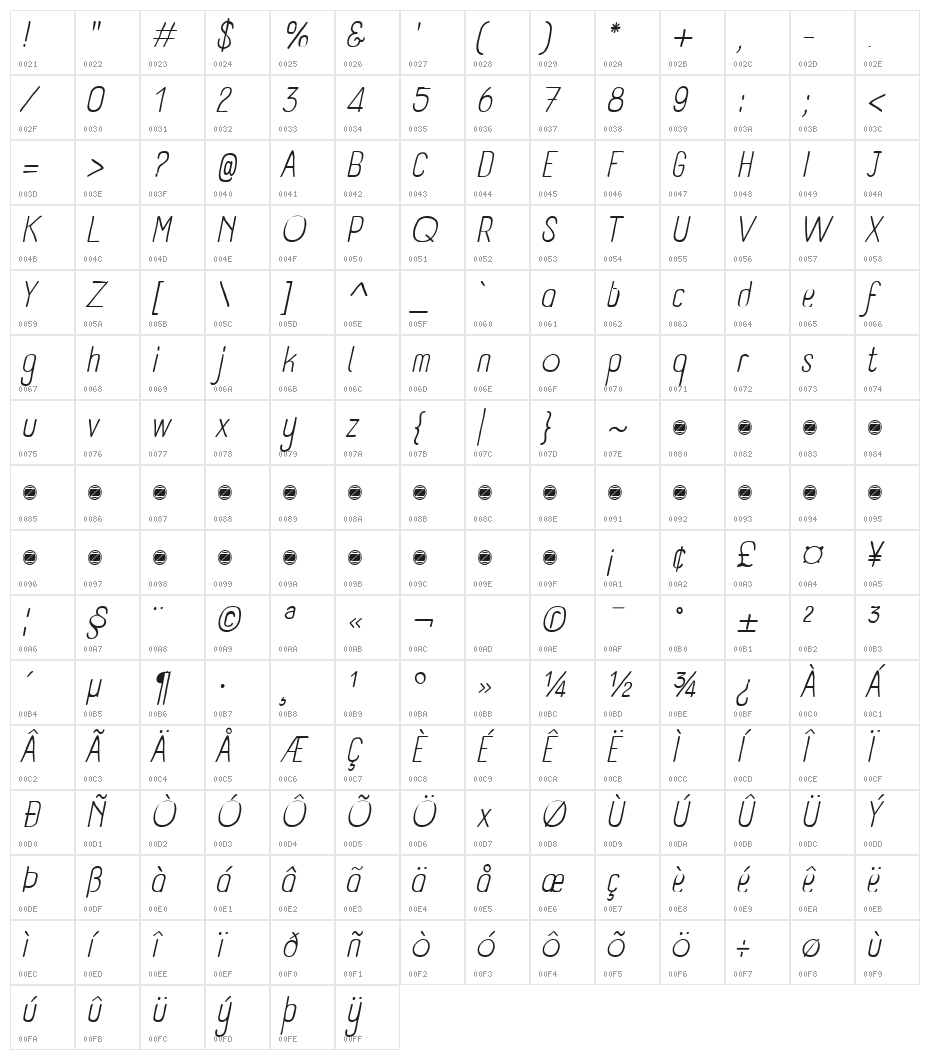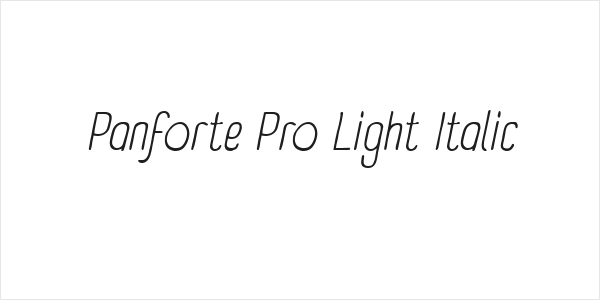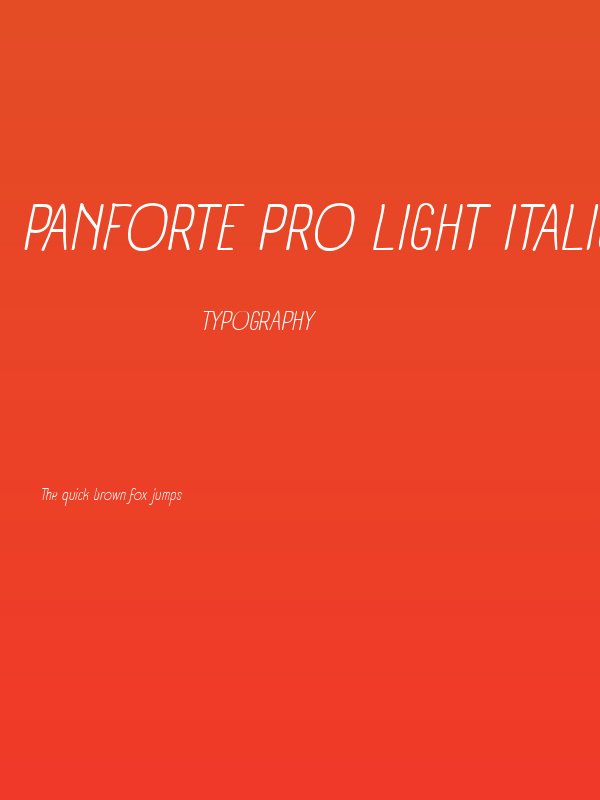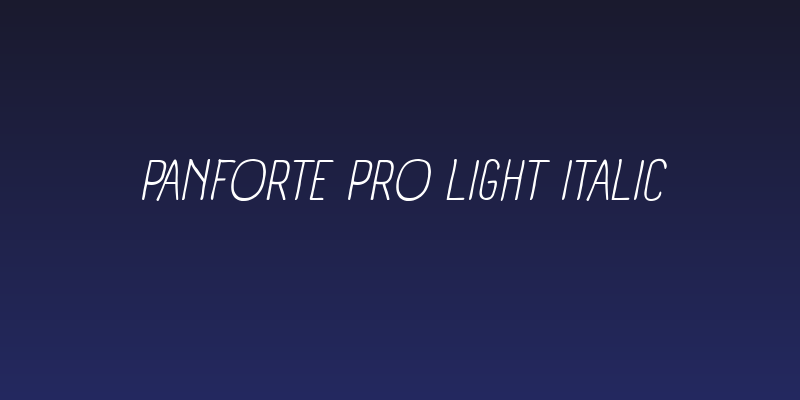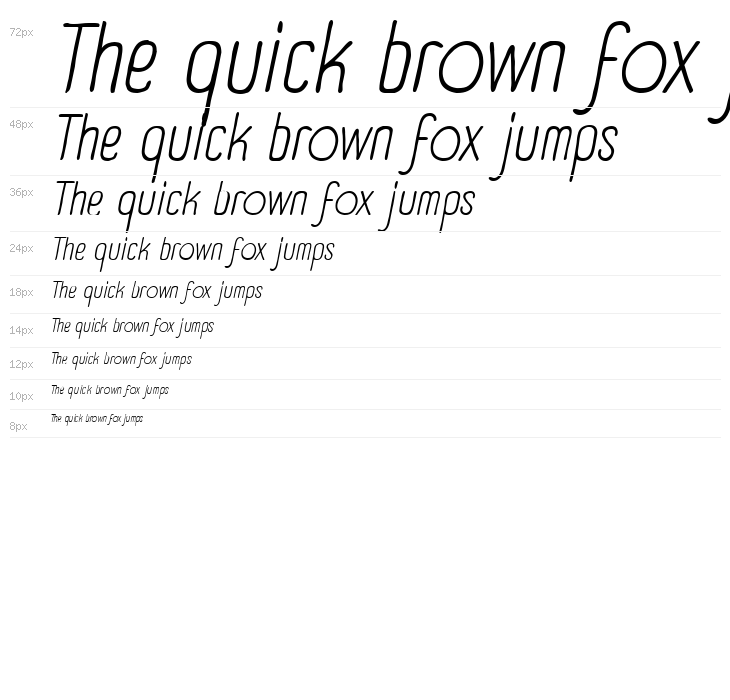
Panforte Pro Light Italic Font
Panforte Pro Light Italic Description
This font features a sleek and modern design with a light and airy feel. The characters are slightly elongated with a gentle slant, giving it an elegant italic style. The strokes are consistent in weight, providing a uniform appearance across all characters. The uppercase and lowercase letters maintain a harmonious balance, while the numerals and special characters are clearly defined and easy to read. Its overall design exudes a sense of sophistication and minimalism, making it versatile for various applications.